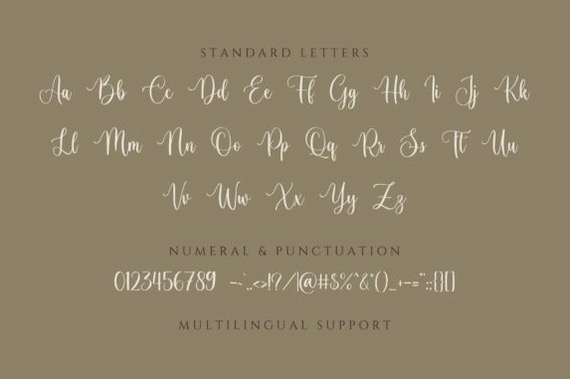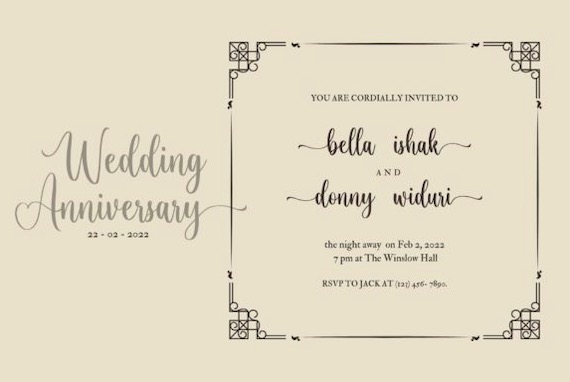
Smooth Loving Font is a classy modern handwritten typeface style that was created and shared by Sigit Dwipa. This script font is perfect for lots of modern projects such as branding, logos, wedding invites, and every other design which needs a handwritten romantic touch. It is also PUA encoded which means you can access all of the glyphs and swashes with ease!
Smooth Loving Handwritten Font